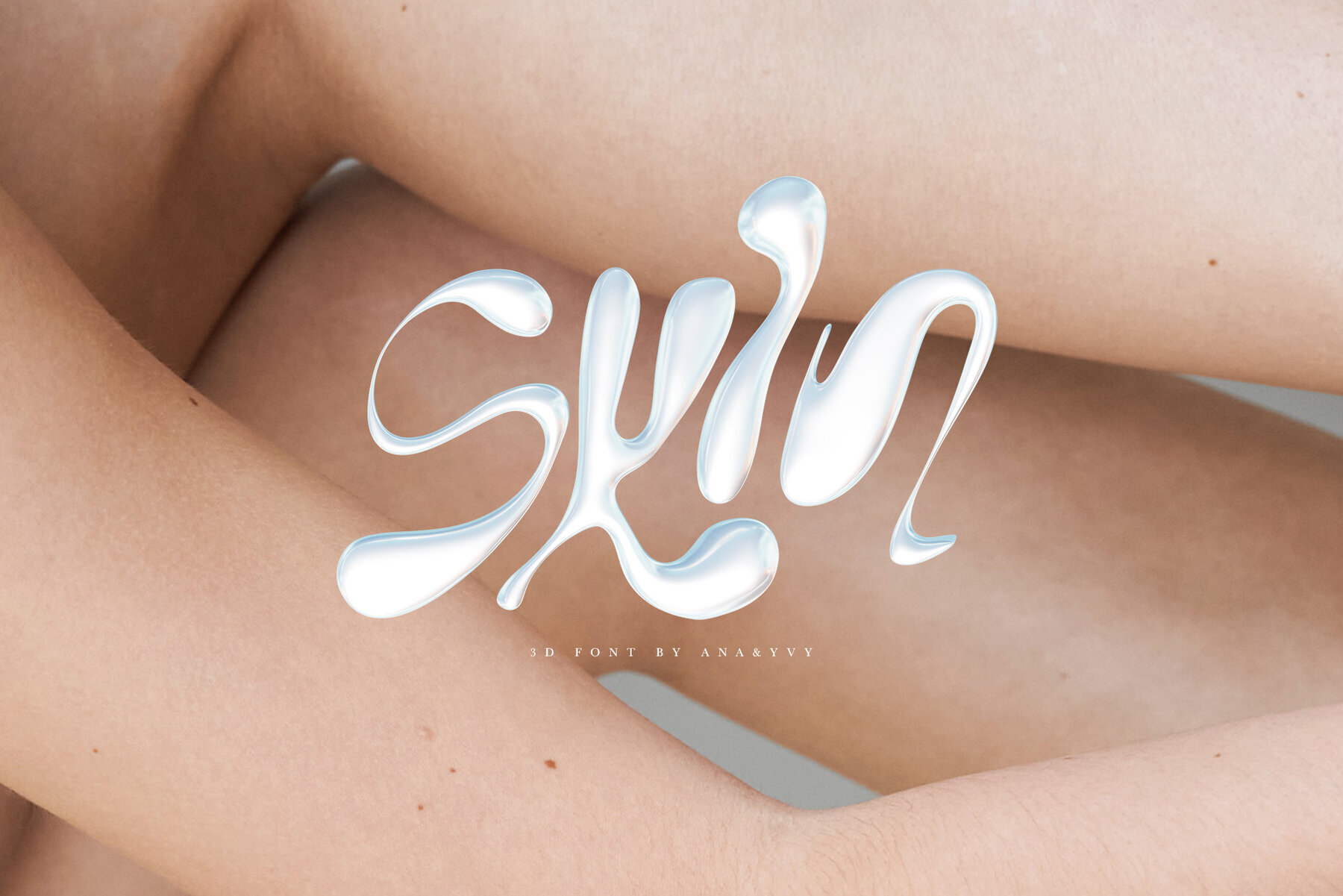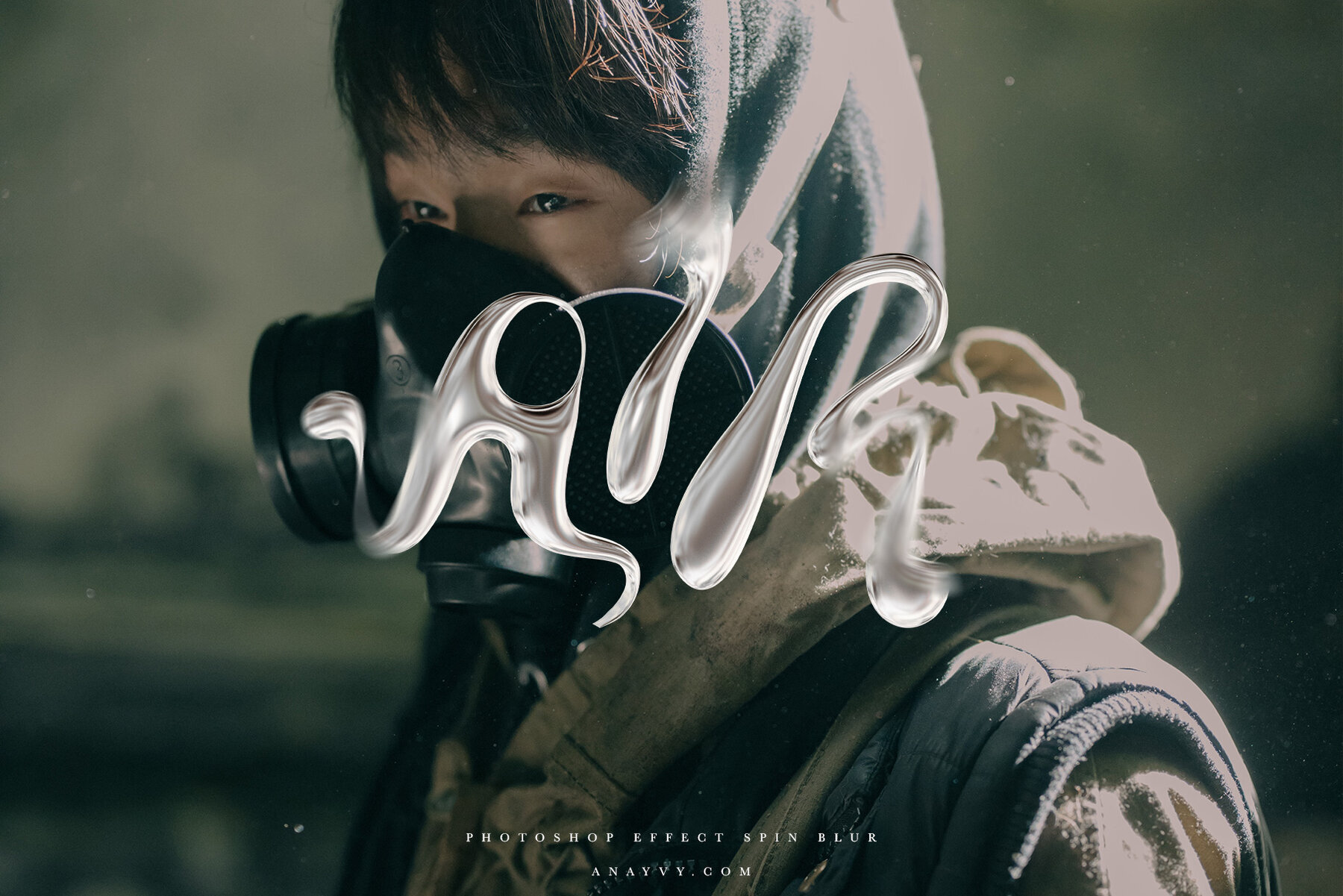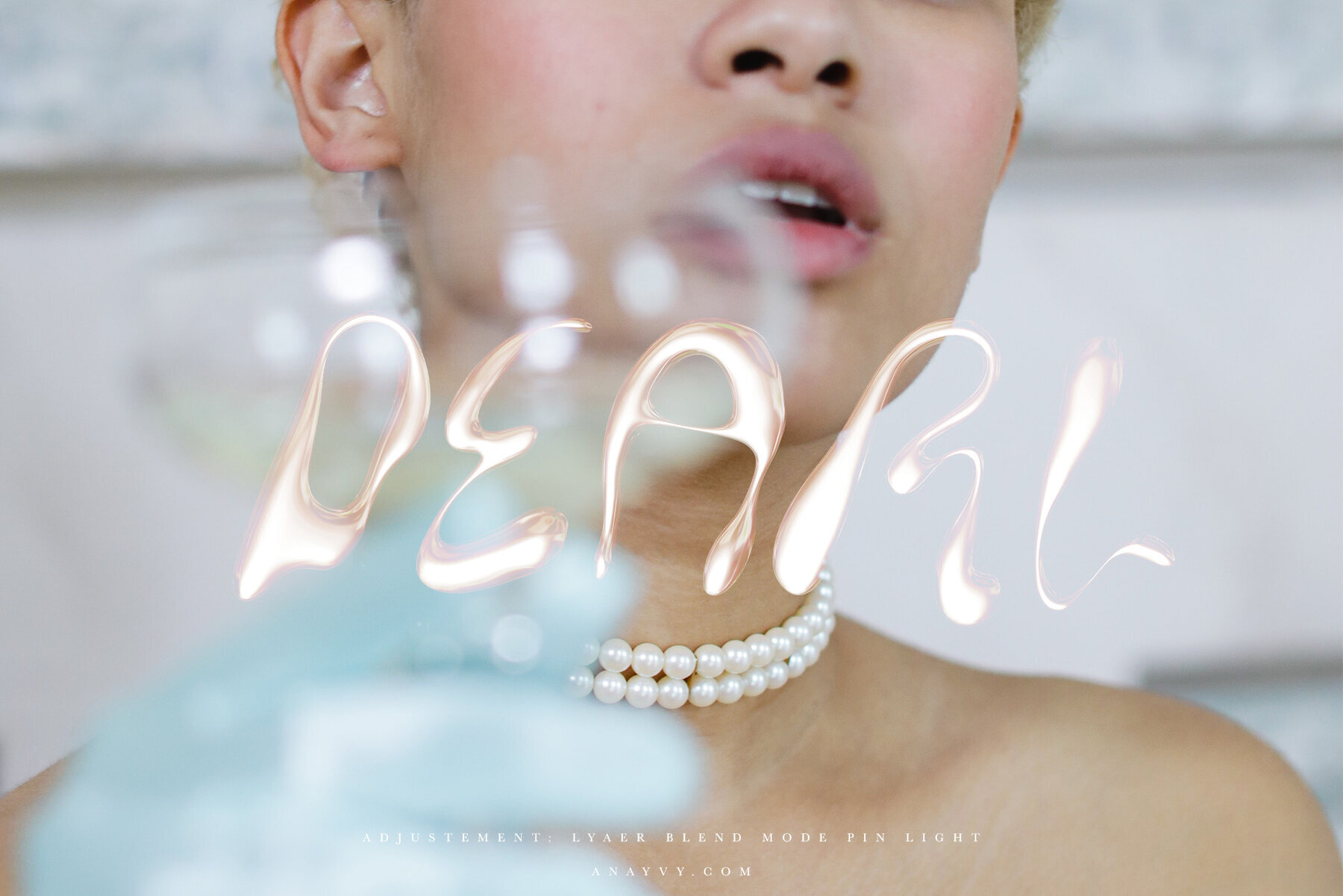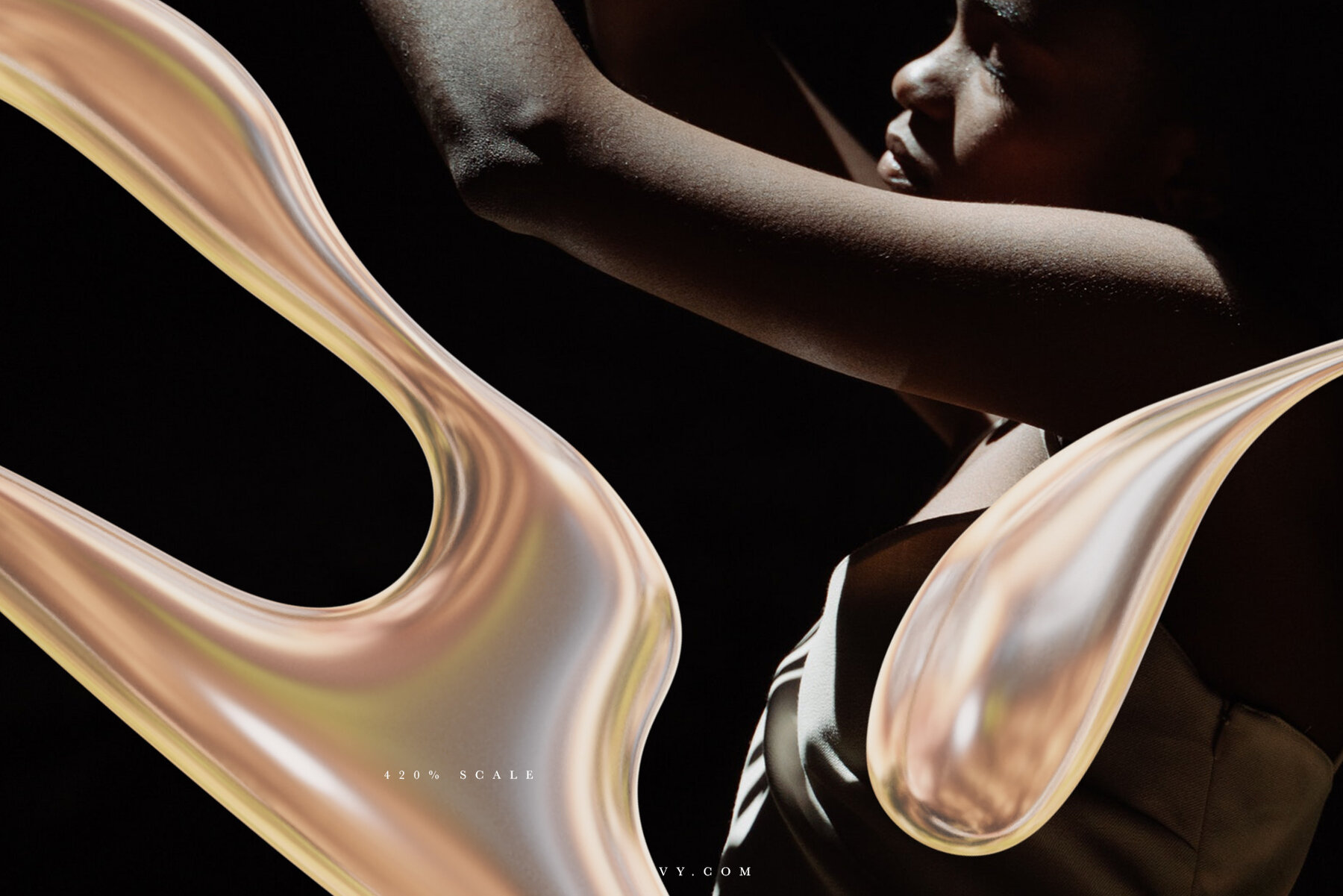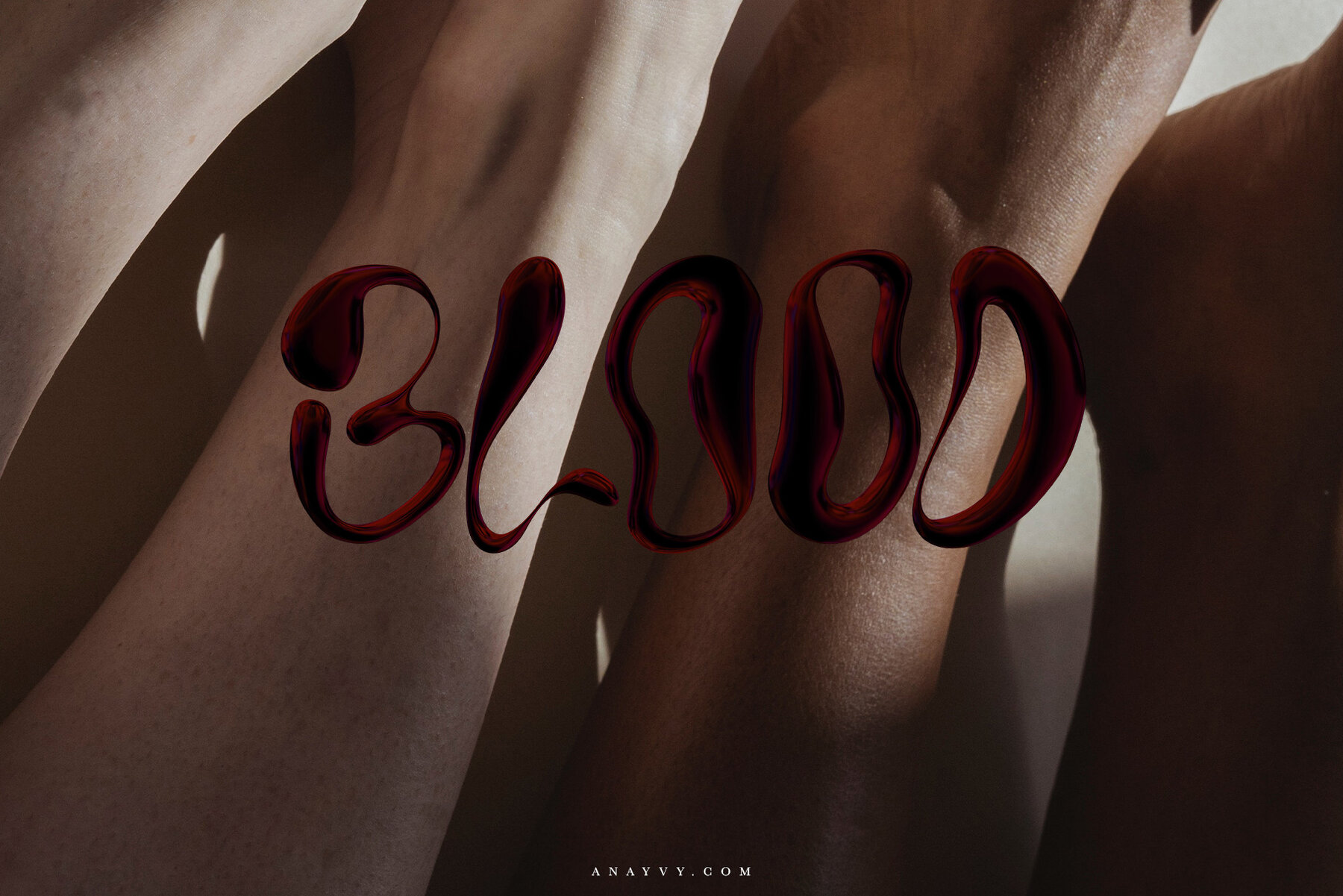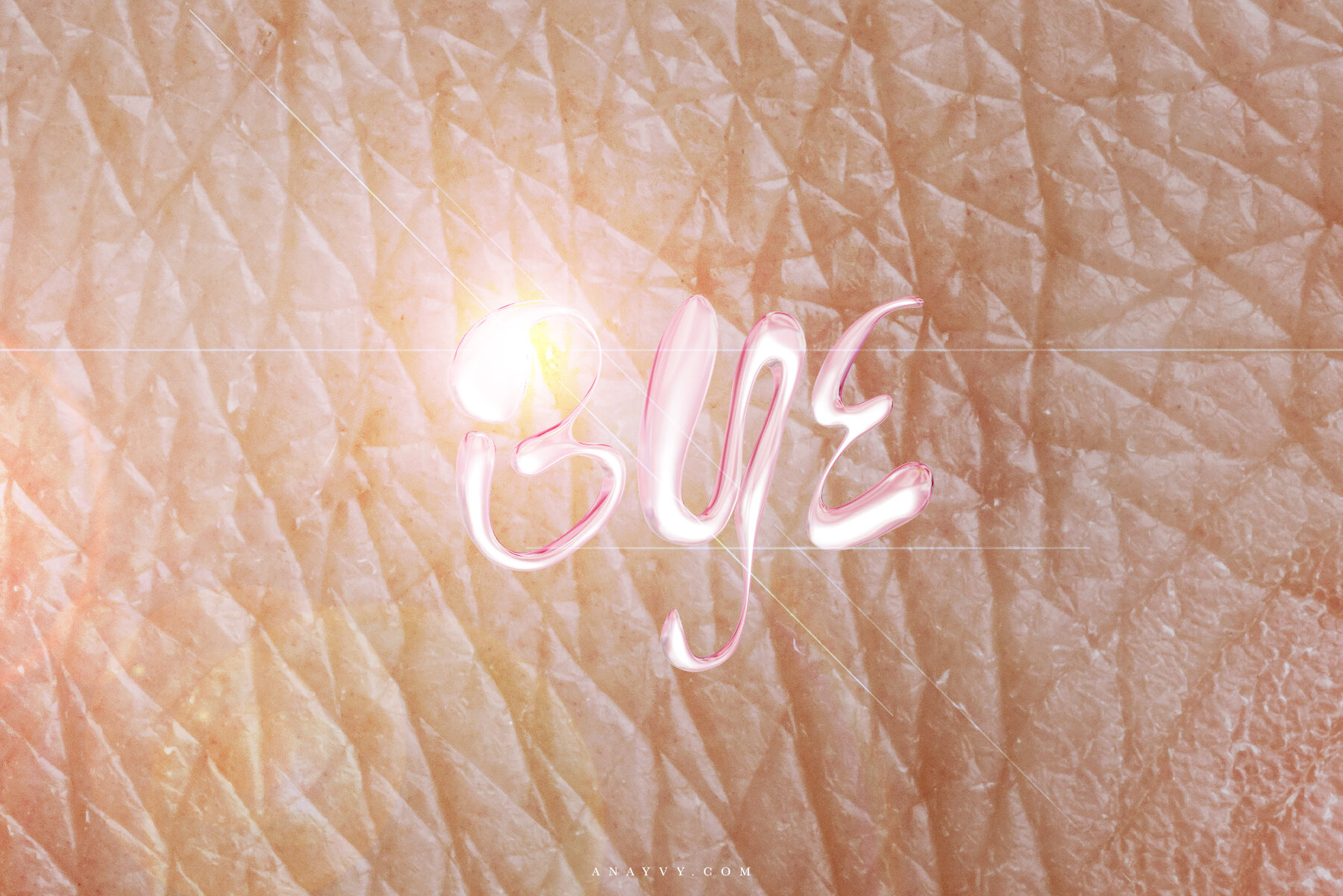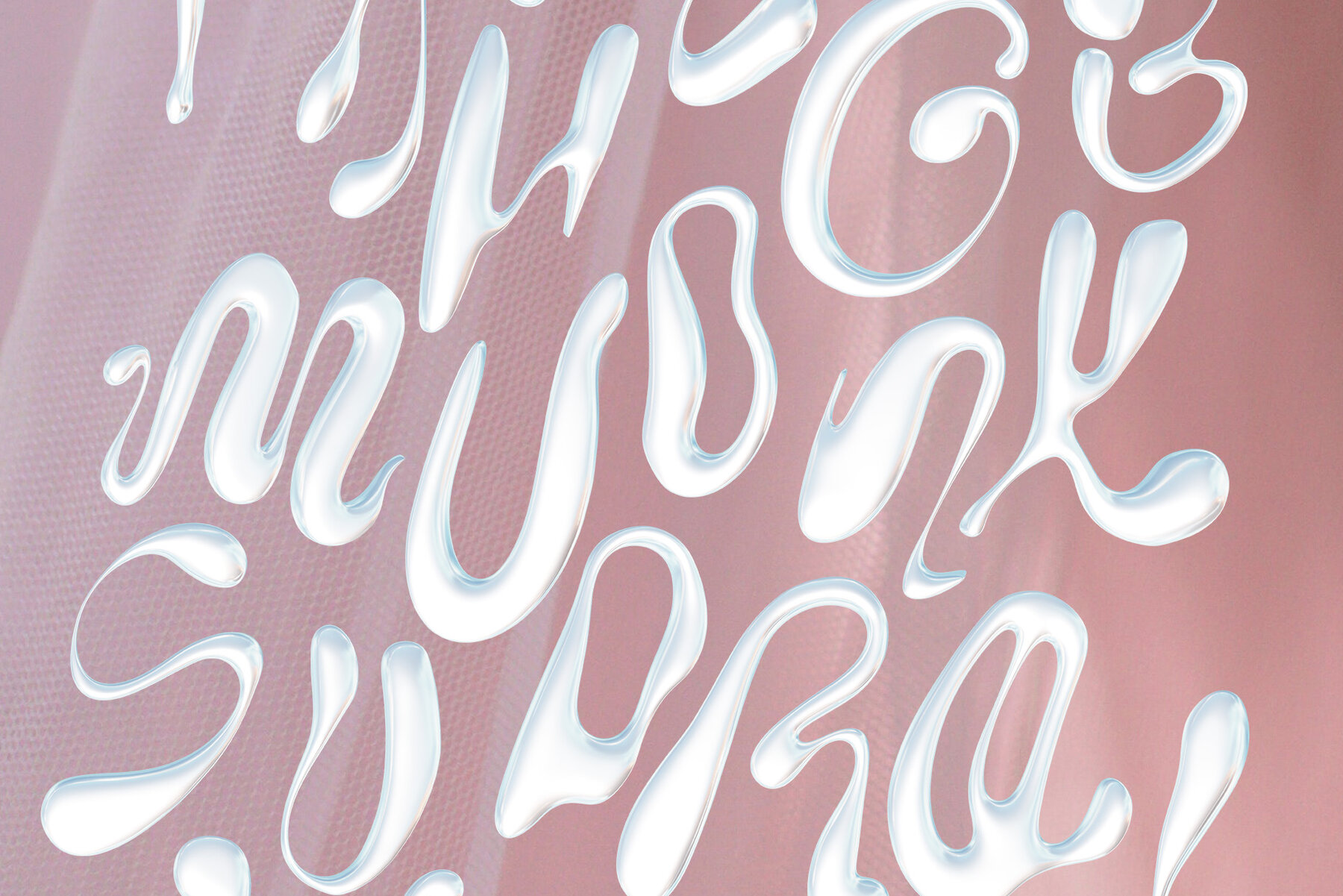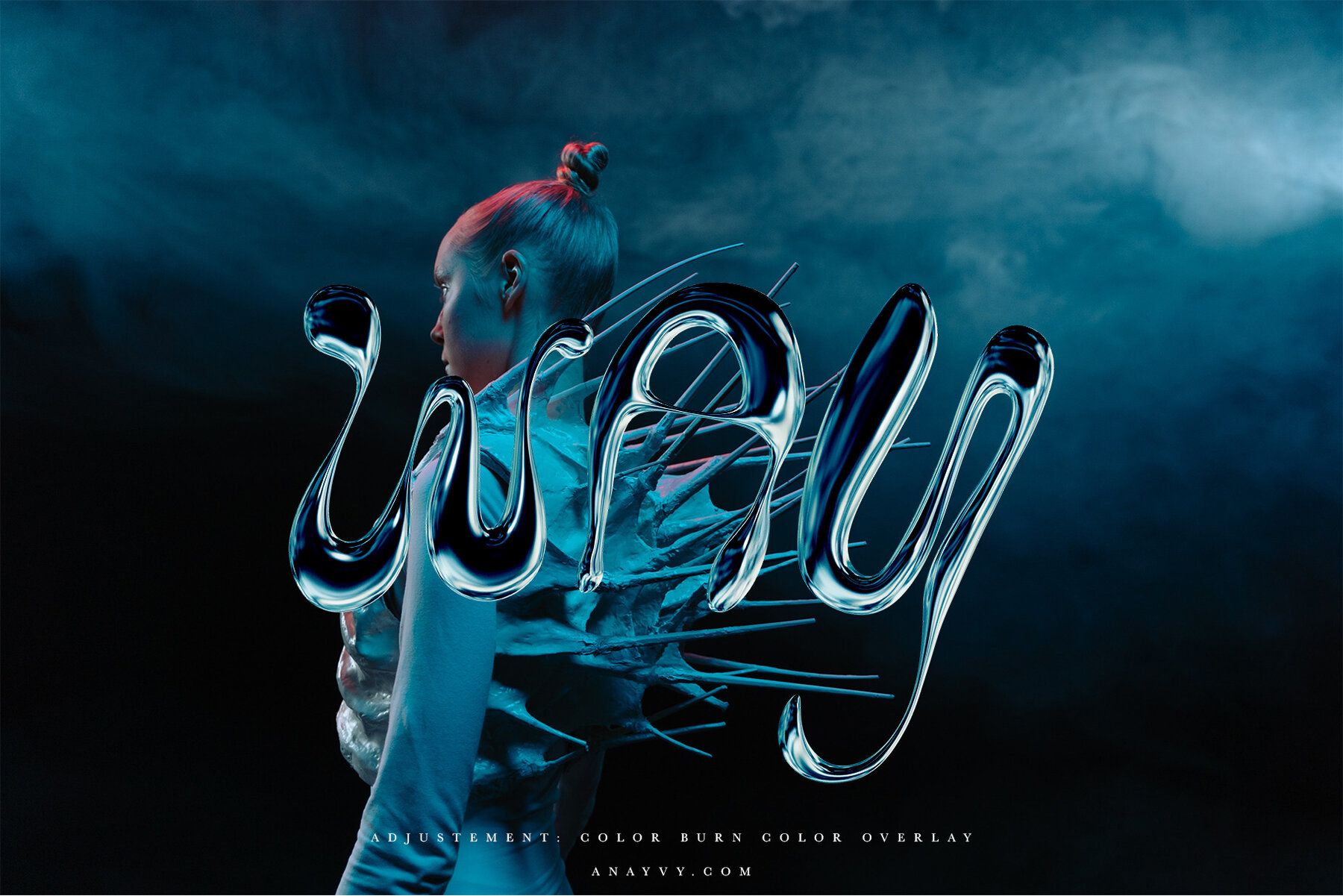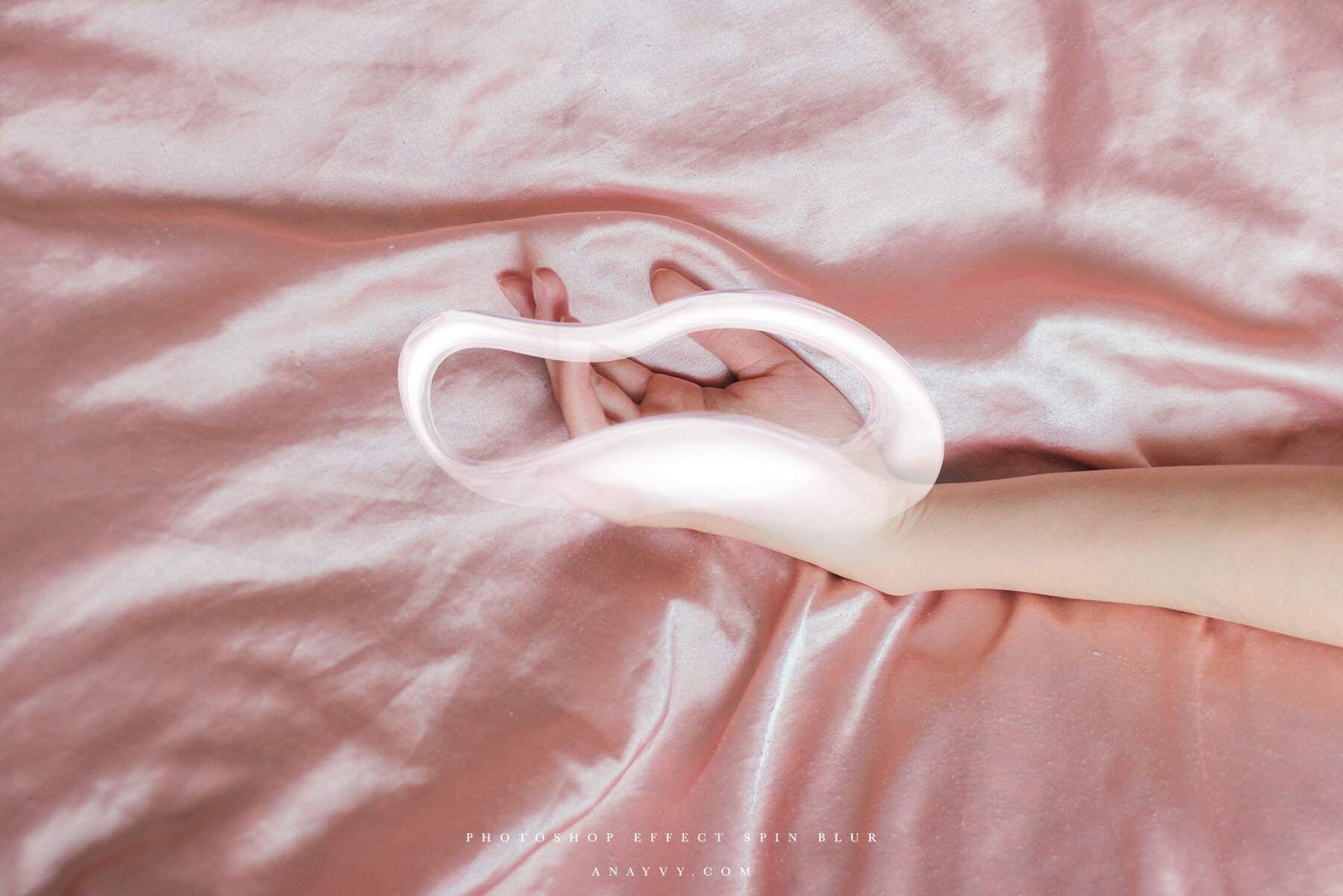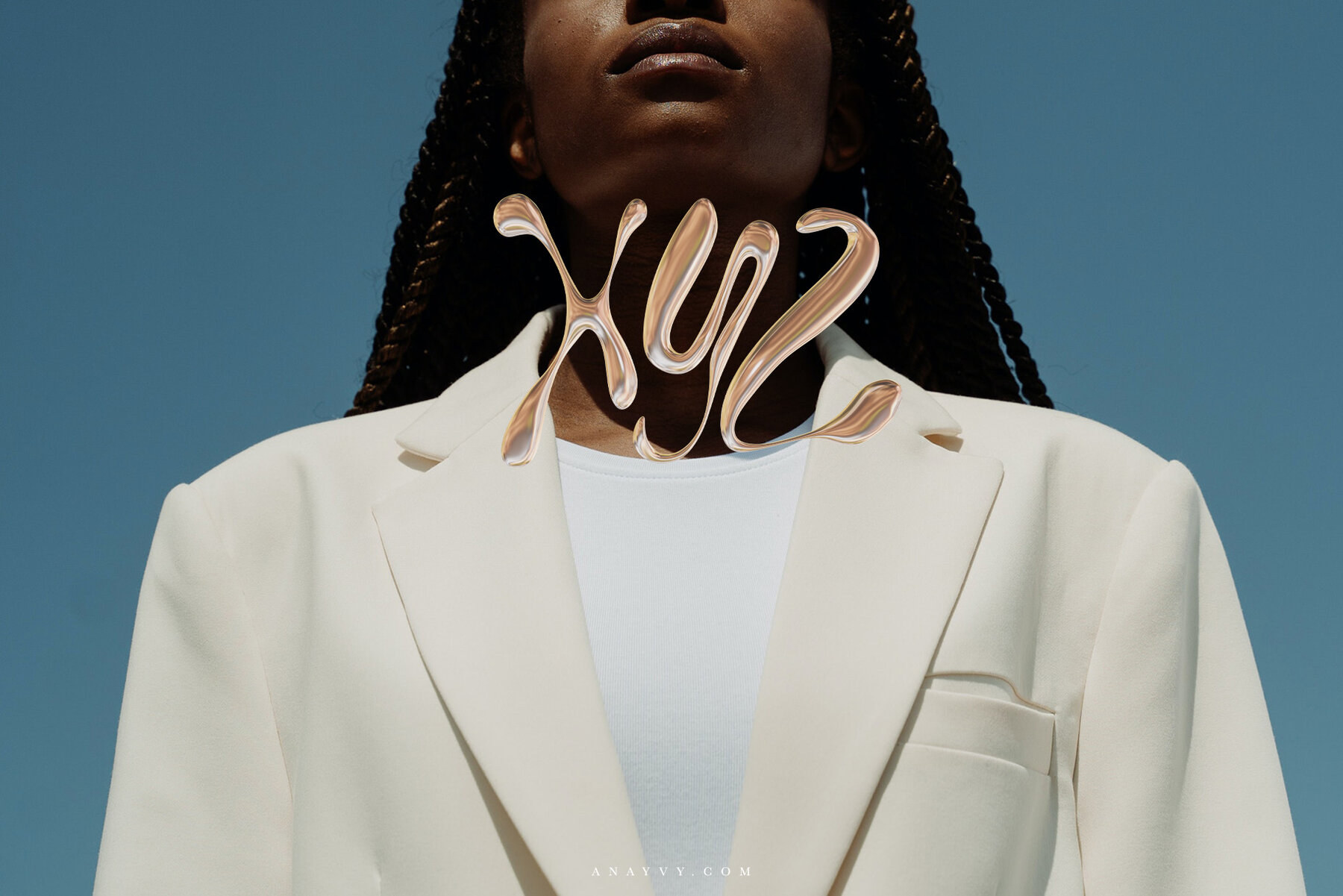
ALIEN SKIN Font
Alien Skin is a limited mini font set - handmade melting shapes, pearl & metallic reflections in different color concepts. Simply a fun font to work with!
Use it as shapes, use it as a font, simply have fun!